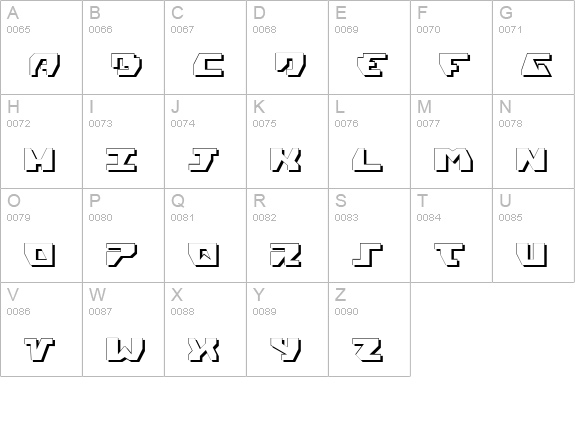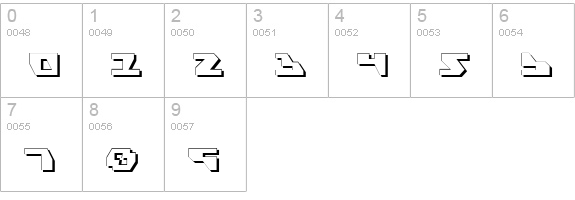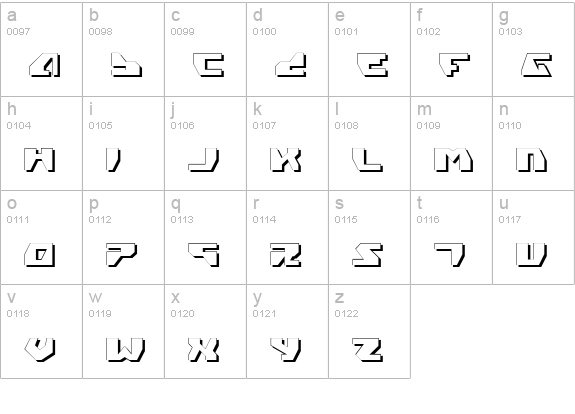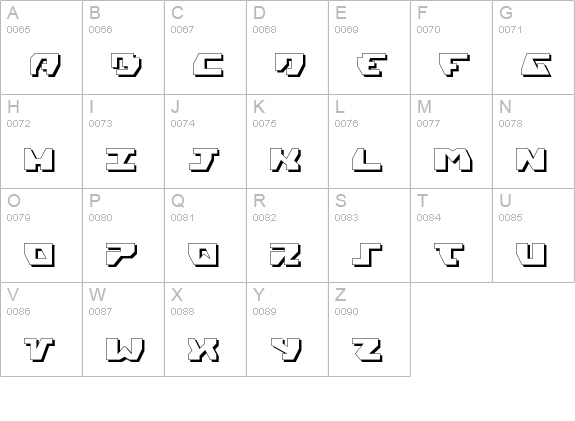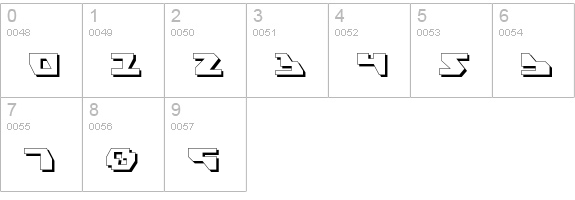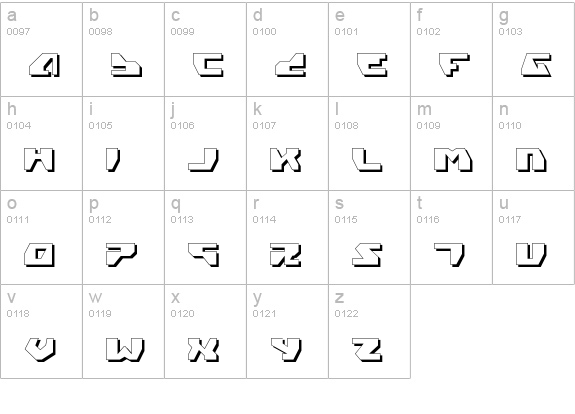
Gyrfalcon 3D Font Details
Introducing Gyrfalcon 3D font, a stunning and dynamic typeface that is sure to make your designs stand out. This font combines intricate 3D effects with a sleek and modern design, creating a captivating visual impact. The sharp angles and bold lines of Gyrfalcon 3D font exude strength and sophistication, making it perfect for a wide range of projects. What's even better is that Gyrfalcon 3D font is available for free download at FontsMarket.com. This means you can easily enhance your designs with this eye-catching font without any cost. Whether you're working on branding materials, posters, websites, or any other project, Gyrfalcon 3D font is sure to make a statement. Don't miss out on the opportunity to add this unique and versatile font to your collection today!